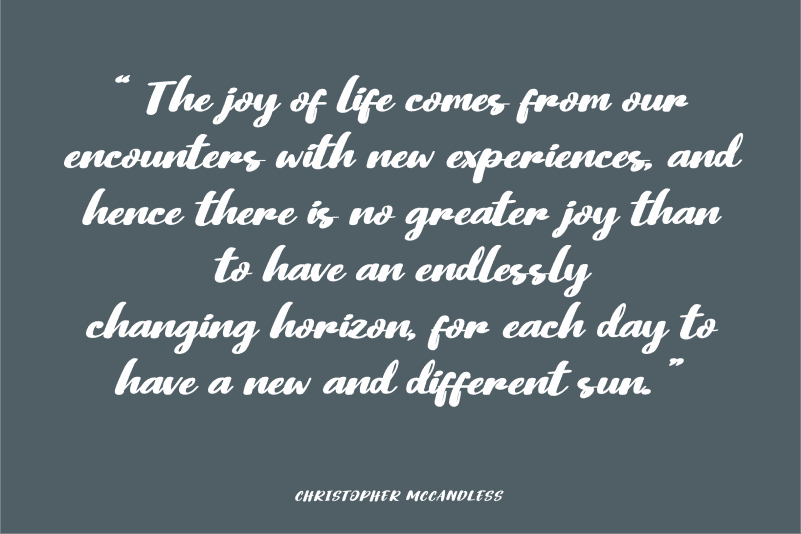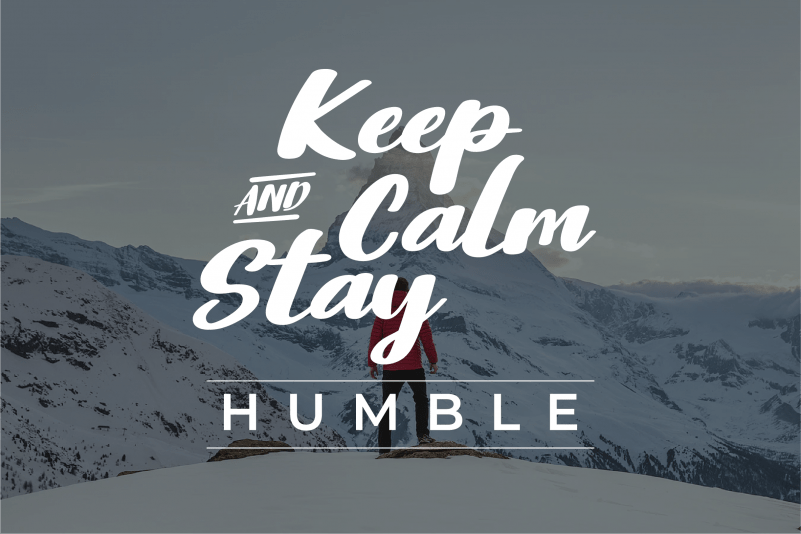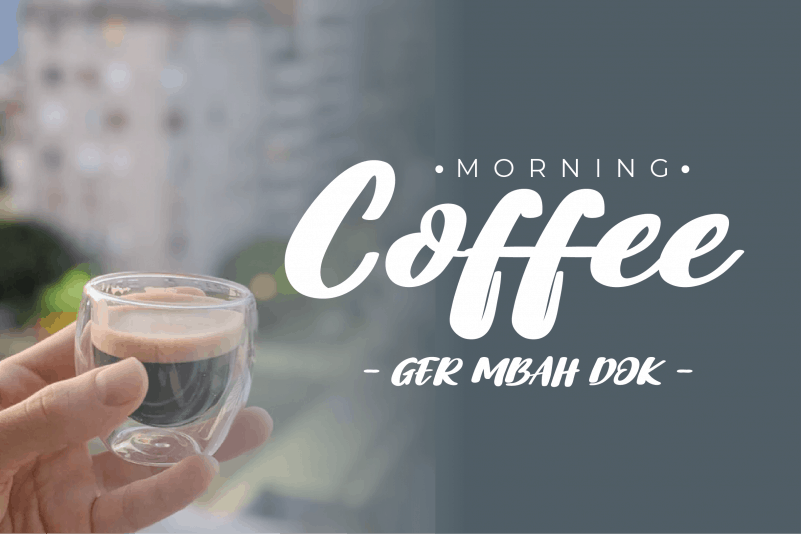
Qoprol Roll Script Font
Qoprol Roll Script Font is a script typeface that is connected with clear style and dramatic movements. This font comes with uppercase letters, lowercase letters, numbers, punctuation marks, and so many variations on each character including alternating opentypes, common binders and additions to make you customize your design. Perfect to use for Logotype, Letterhead, Posters, Clothing Designs, Labels and all designs that require handwriting
OPENTYPE FEATURES
Standard Ligature
All Alternatives
Twinletter